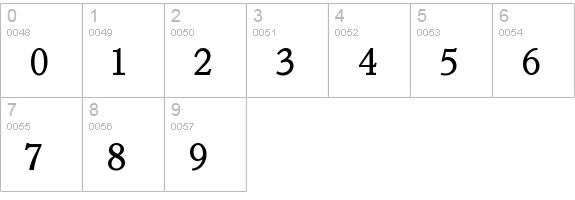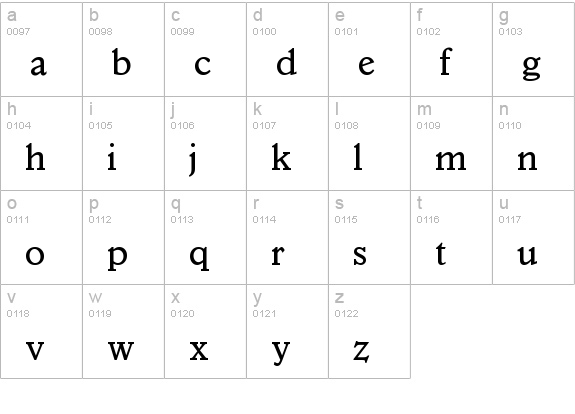
Istria-Old-Style-Regular is the standard, neutral variant in the Istria typeface family \xE2\x80\x94 well suited to general body text, paragraphs, and standard typographic work.
Istria-Old-Style-Regular is a classic serif font that exudes elegance and sophistication. With its timeless design and traditional look, this font is perfect for adding a touch of vintage charm to your projects. Its clean lines and balanced proportions make it versatile and suitable for a wide range of design applications. What sets Istria-Old-Style-Regular apart is that it is not only stylish and functional but also free to download at FontsMarket.com. This means you can enjoy using this exquisite font without any cost, making it a valuable addition to your font collection. Whether you are working on a print design, branding project, or digital content, Istria-Old-Style-Regular will bring a touch of class and refinement to your work. Download it today and elevate your designs with this beautiful and free font.